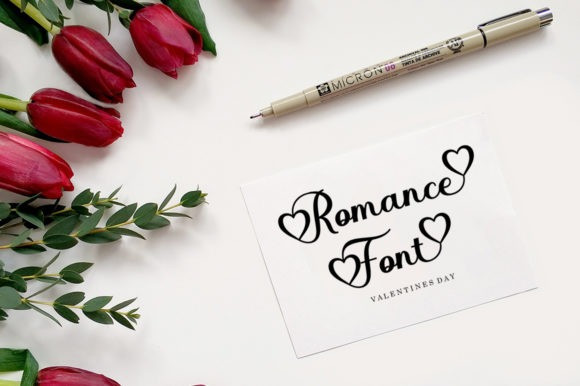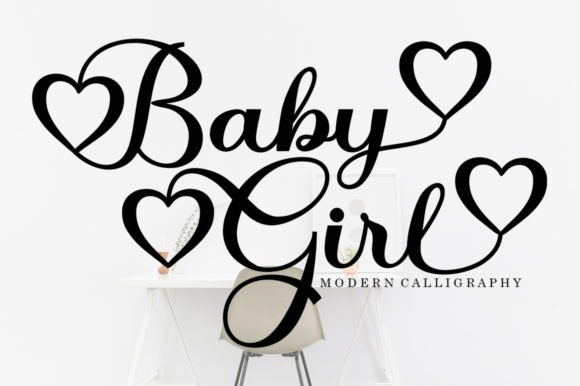
Baby Girl Font
Baby Girl Calligraphy Font is a beautiful script font with a romantic theme. Fall in love with its incredibly versatile style and use it to create spectacular designs!